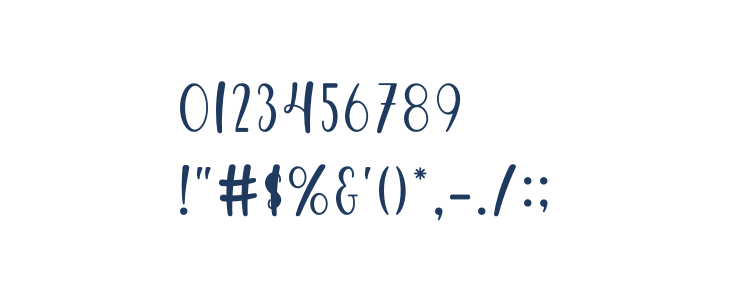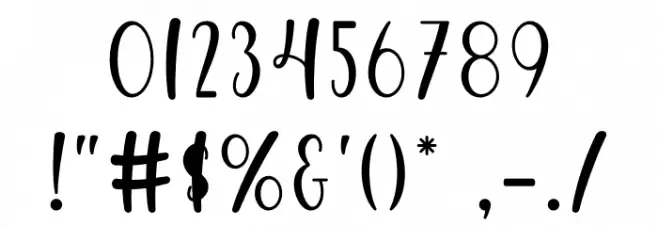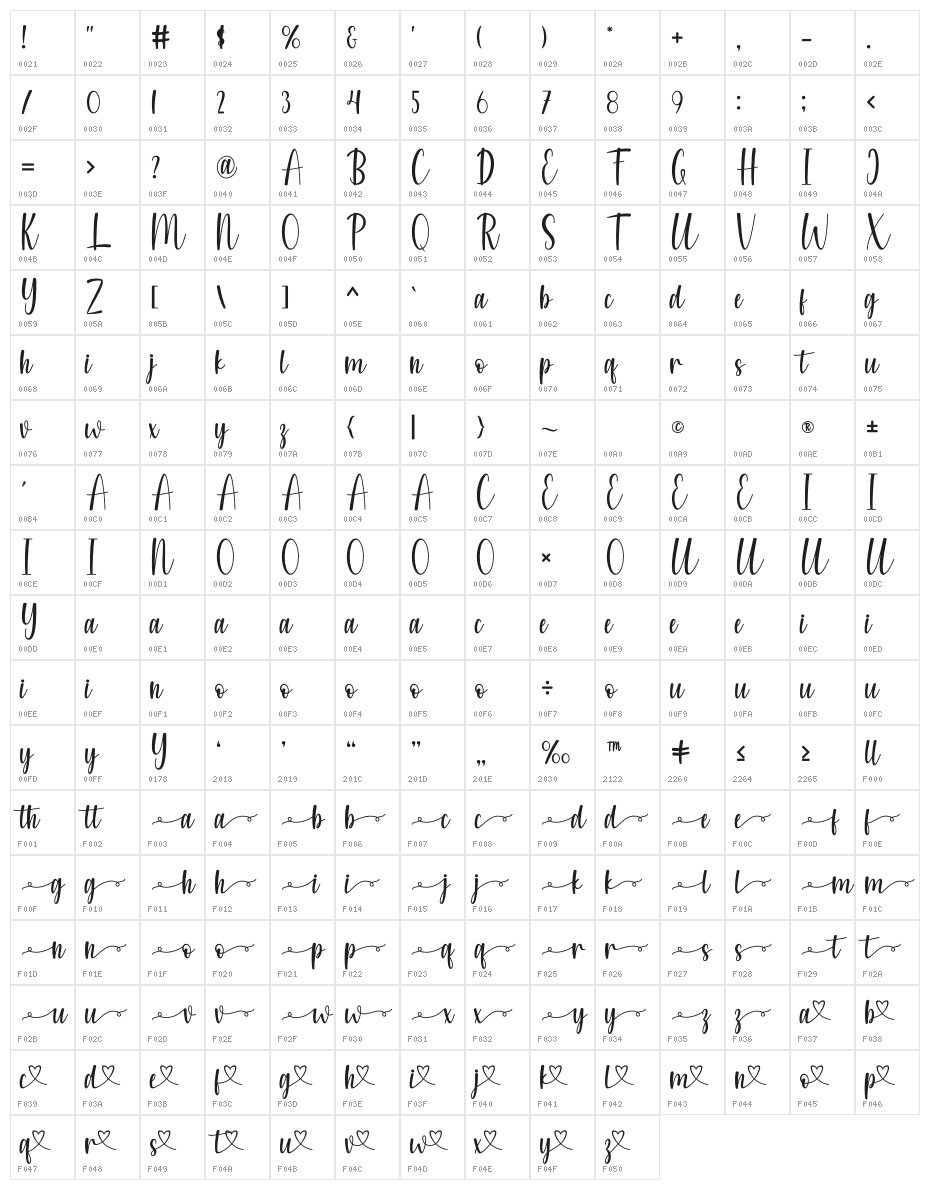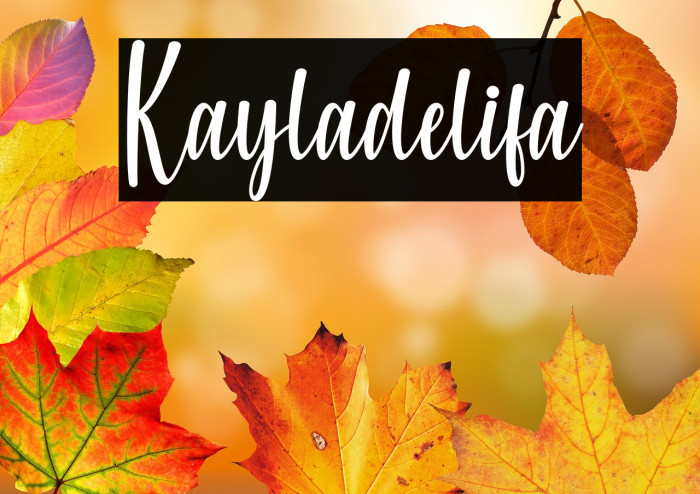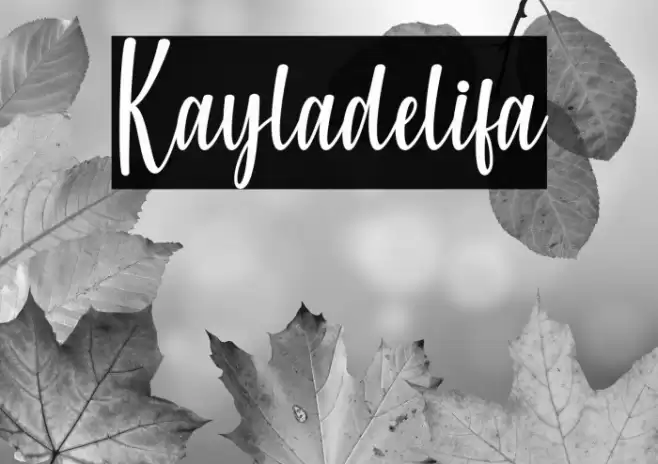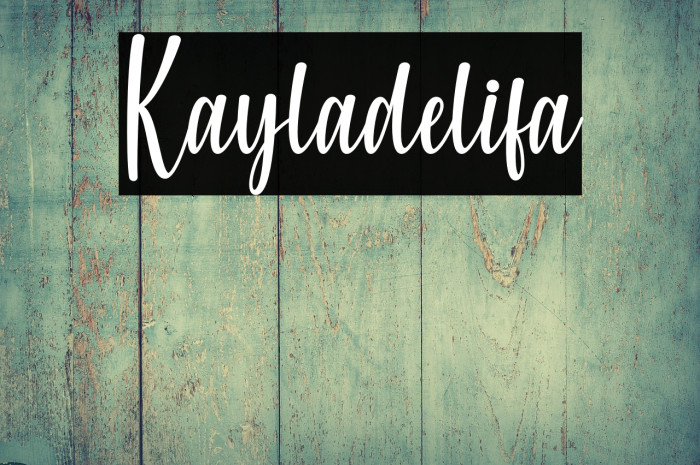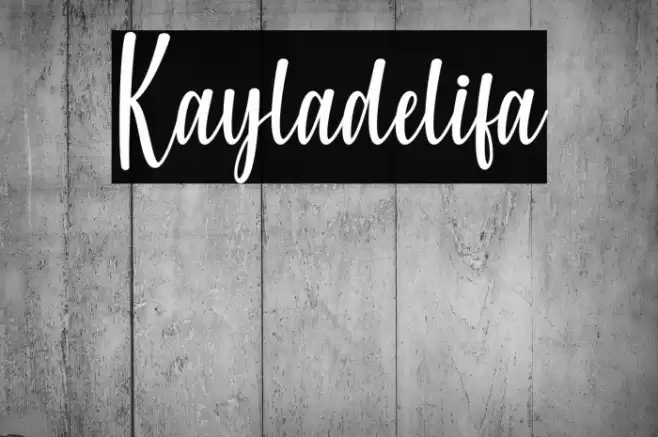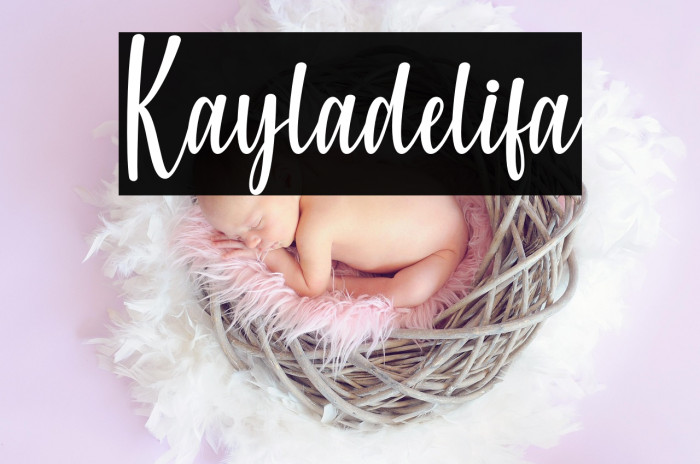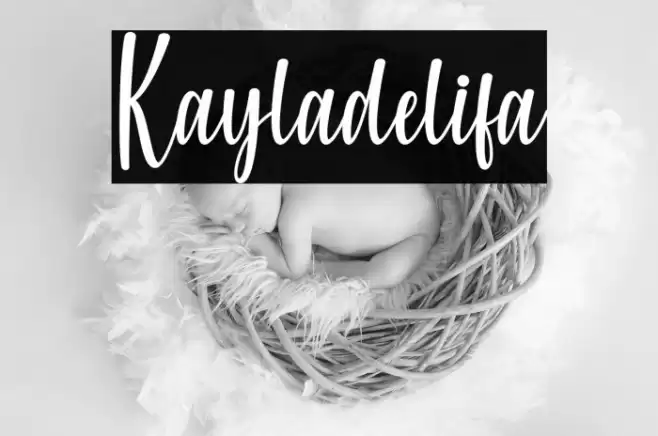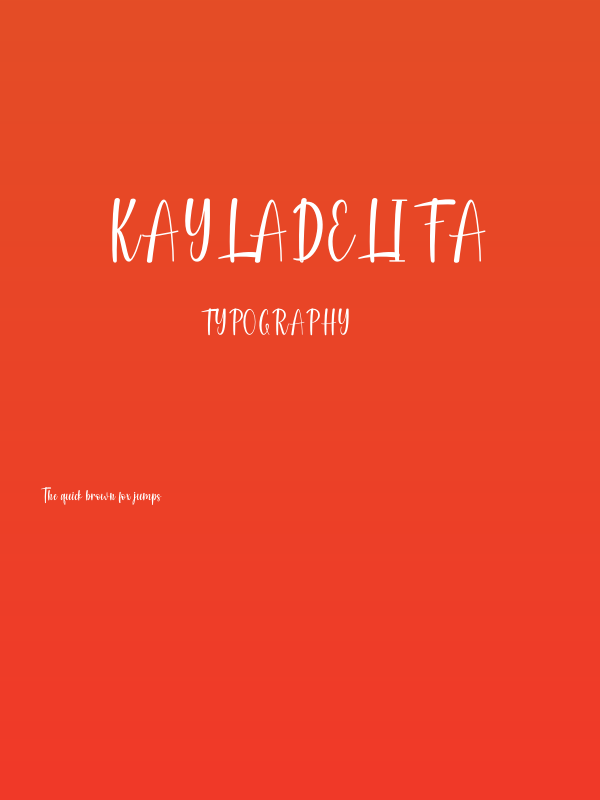
Kayladelifa Font
Kayladelifa Description
This font features a playful and elegant script style with a handwritten appearance. The uppercase letters are tall and slender, with a slight slant that adds a dynamic flow to the text. The lowercase letters are more rounded and connected, creating a smooth and cohesive look. The numbers are consistent with the overall style, maintaining the same playful and elegant feel. Special characters are well-integrated, complementing the letters and numbers. This font's unique charm and fluidity make it suitable for a variety of creative projects.
Use CaseLogos, Headlines, Invitations
Proposed ProjectsIdeal for wedding invitations, greeting cards, branding, and social media graphics.